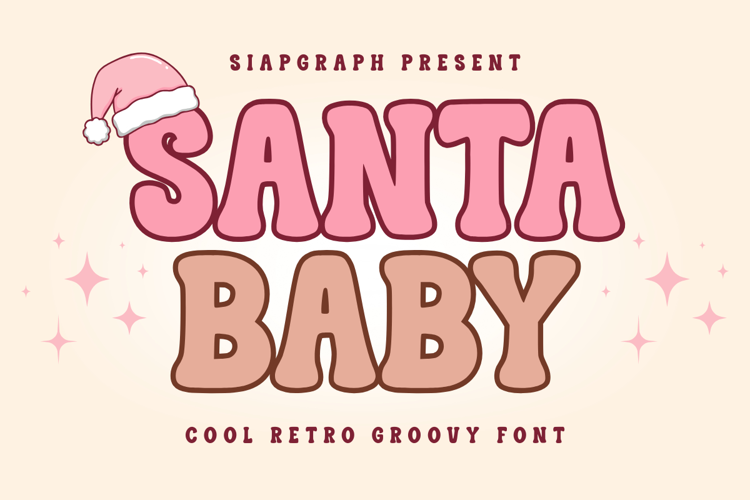
Santa Baby - A retro Chrismas font duo
Santa Baby is a cool retro display duo font. It is perfect for any hippie design that requires a groovy look and it’s guaranteed to make an impact. This font is PUA encoded, which means you can access all of the glyphs and swashes with ease!
- Standard glyphs, Basic Latin Unicode: standard English numbers and basic punctuation
- Alternate swashes letter (begin swashes and end swashes)